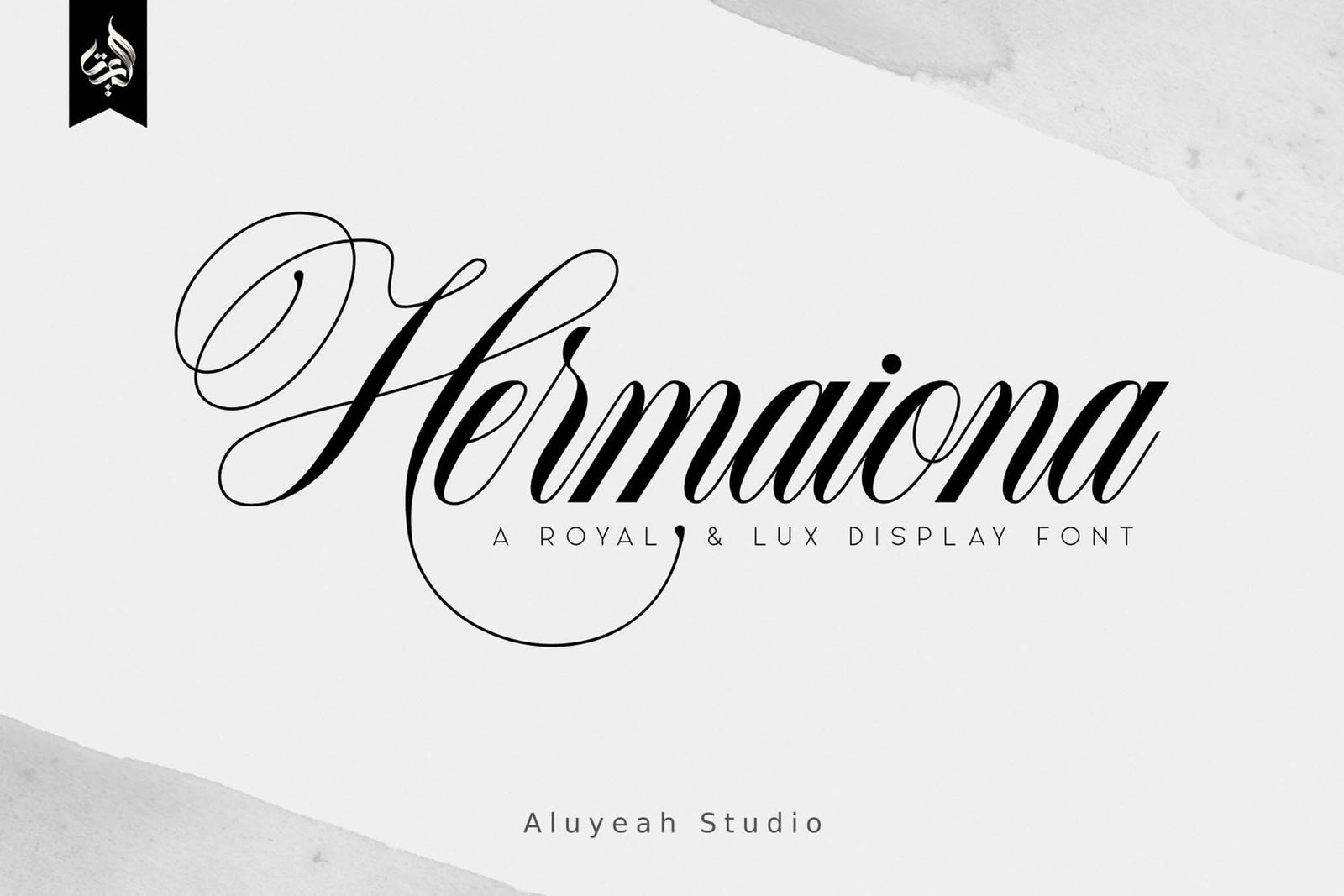
Hermaiona Font
Hermaiona Font is a royal and luxurious display font that has been carefully crafted and inspired by the biggest names in the fashion industry. A modern calligraphic script font by nature, every letter of Hermaiona has been curated to add aesthetic value to your content. They also carry on their shoulders the responsibility of beautifying text and making it truly palatable. Enter Hermaiona by Aluyeah Studio,
you may use it for your luxury and fashion branding, invitation cards, wedding invites, packaging, signages, magazines, social media posts, advertisement campaigns, headlines, and much more. Make sure to use it for small runs of texts, as the font is a typical display font that does not offer great legibility in big pieces of content. The only restriction this font will impose on you is that of language support; only Latin languages are supported.